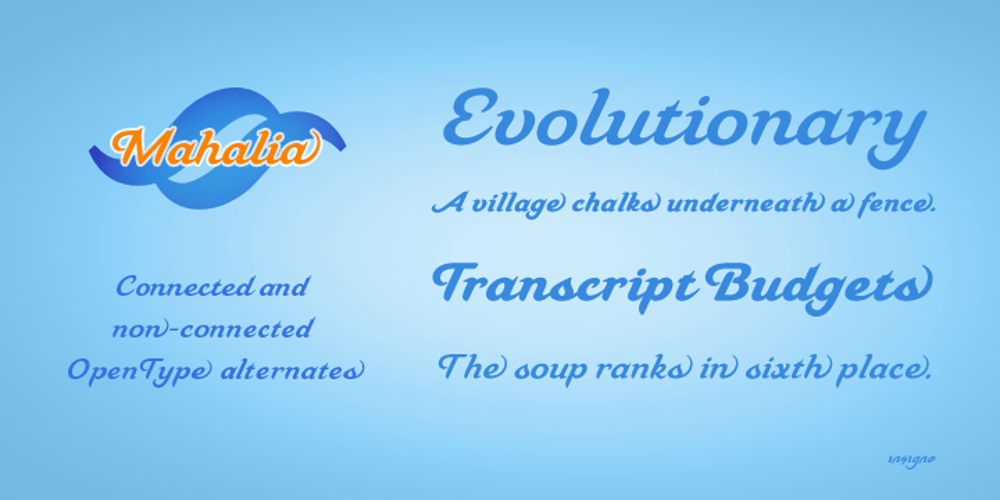
Mahalia
Mahalia font
Mahalia Font Family was designed by Jeremy Dooley and published by insigne. Mahalia contains 2 styles and family package options. Mahalia draws inspiration from vintage hand-lettering, but adds a modern, European twist. Strongly slanted at a 25 degree angle, Mahalia draws immediate interest, but is still graceful. Mahalia includes many useful OpenType features, including a set of non-connecting and titling alternates, ligatures and end swashes.